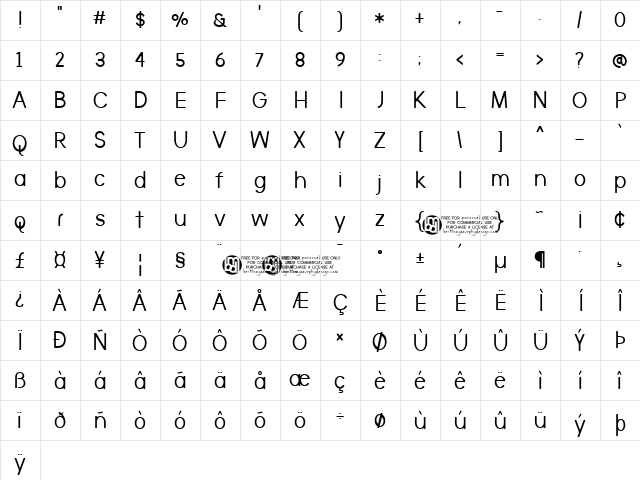
The Brooklyn Smooth Bold Regular
| Foundry | Brittney Murphy |
| Designer | Brittney Murphy |
Design Context for The Brooklyn Smooth Bold Typeface
The Brooklyn Smooth Bold is a composed and adaptable typeface that performs quietly and consistently across a wide range of design contexts. Its bold stroke weight gives it real presence on the page.